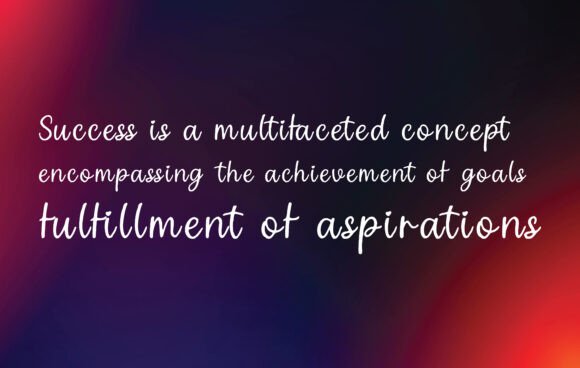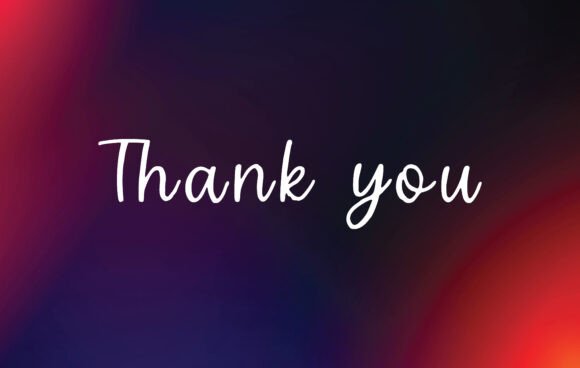
Dora Font: Elevate Your Creative Projects with a Lovely Handwritten Style
Are you a designer, crafty person, or someone who loves to create unique and eye-catching content? Look no further! Introducing Dora Font, a beautiful and lovely handwritten font that’s perfect for taking your creative ideas to the next level. In this article, we’ll explore the features and benefits of Dora Font, and why it’s the best choice for creating stunning logos, branding, and quotes.
What is Dora Font?
Dora Font is a carefully crafted handwritten font that’s designed to add a personal touch to your creative projects. Its unique and elegant style makes it perfect for a wide range of applications, from logo design and branding to social media graphics and quotes. With Dora Font, you can add a dash of personality and whimsy to your designs, making them stand out from the crowd.
Key Features of Dora Font
- Handwritten style: Dora Font boasts a beautiful, handwritten style that’s perfect for creating a personal and emotional connection with your audience.
- Unique and elegant: The font’s unique and elegant design makes it perfect for creating eye-catching logos, branding, and quotes that stand out from the crowd.
- Versatile: Dora Font is versatile and can be used for a wide range of creative projects, from digital designs to print materials.
- Easy to read: Despite its elegant style, Dora Font is easy to read, making it perfect for body text and captions.
Why Choose Dora Font?
So, why should you choose Dora Font for your creative projects? Here are just a few reasons:
- Adds a personal touch: Dora Font adds a personal touch to your designs, making them more relatable and engaging.
- Perfect for branding: The font’s unique and elegant style makes it perfect for creating memorable and recognizable branding.
- Great for quotes and social media graphics: Dora Font is perfect for creating eye-catching quotes and social media graphics that grab attention.
- Supports multiple languages: Dora Font supports multiple languages, making it a great choice for global brands and designers.
How to Use Dora Font
Using Dora Font is easy! Here are a few tips to get you started:
- Pair it with other fonts: Pair Dora Font with other fonts to create a unique and interesting contrast.
- Experiment with colors: Experiment with different colors to find the perfect combination that matches your brand or design.
- Use it for headings and titles: Use Dora Font for headings and titles to add a touch of elegance and sophistication.
In conclusion, Dora Font is a lovely and beautiful handwritten font that’s perfect for taking your creative ideas to the next level. Its unique and elegant style makes it perfect for creating eye-catching logos, branding, and quotes that stand out from the crowd. With its versatility, ease of use, and support for multiple languages, Dora Font is a great choice for designers, crafters, and anyone who loves to create unique and engaging content.